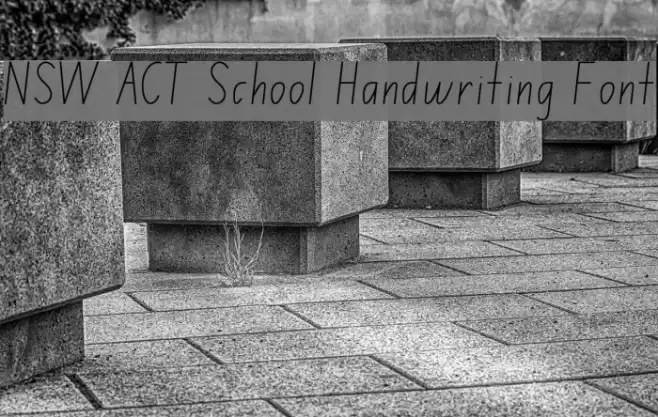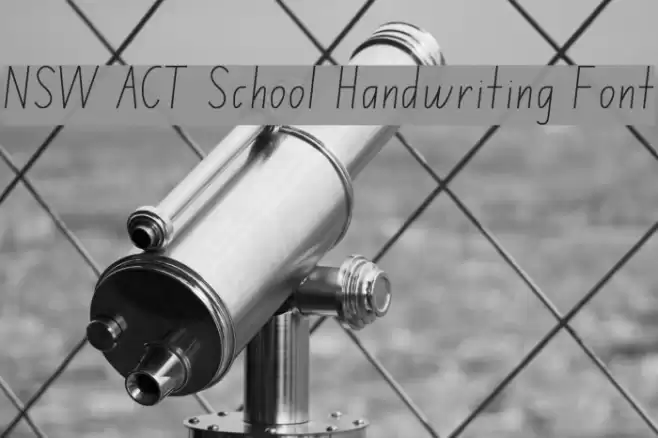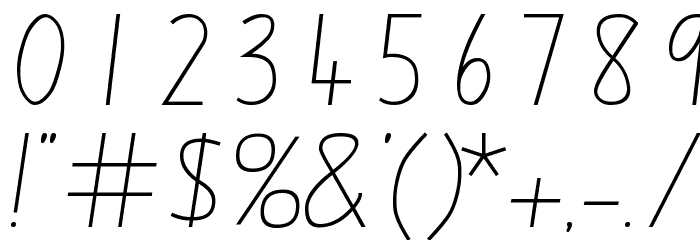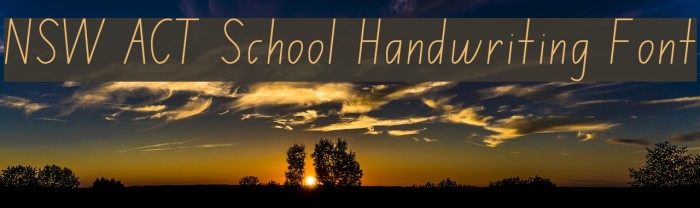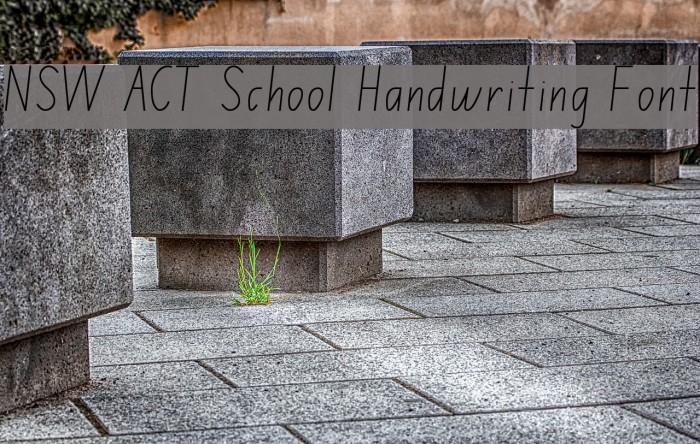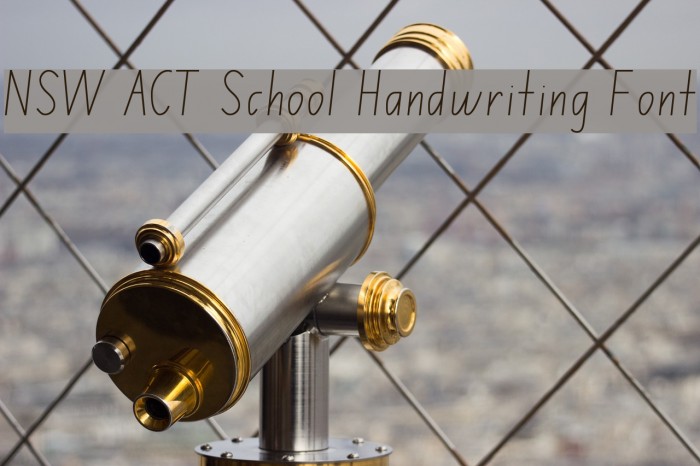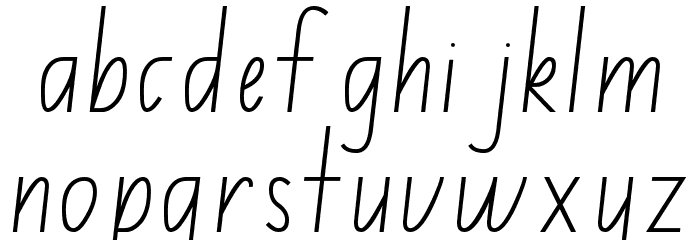
NSW ACT School Handwriting Font Font
NSW ACT School Handwriting Font Description
This font exhibits a clean and legible style reminiscent of traditional school handwriting. The characters are slightly slanted, giving a natural and fluid appearance, which is ideal for educational materials. The uppercase letters are tall and narrow, while the lowercase letters maintain a consistent height, ensuring readability. The numerals are straightforward and align well with the overall aesthetic. Special characters are well-integrated, maintaining the font's cohesive look. This font is perfect for creating educational resources, worksheets, and any project that requires a clear and approachable handwritten style.
A clean, legible handwriting font ideal for educational materials from Uncategorized fonts.
- Proposed Projects: Educational resources, school worksheets, children's books, instructional materials.
- Overall Style: Classic
- Use Case: Educational materials, instructional content, children's books.